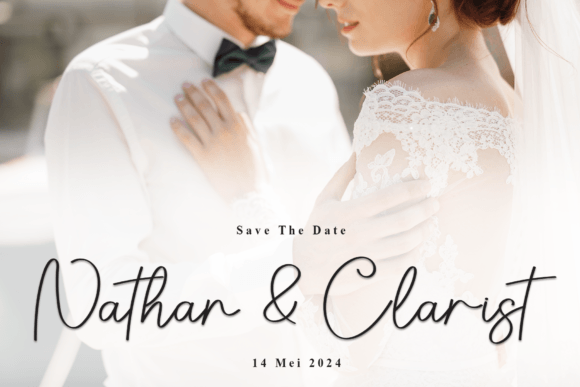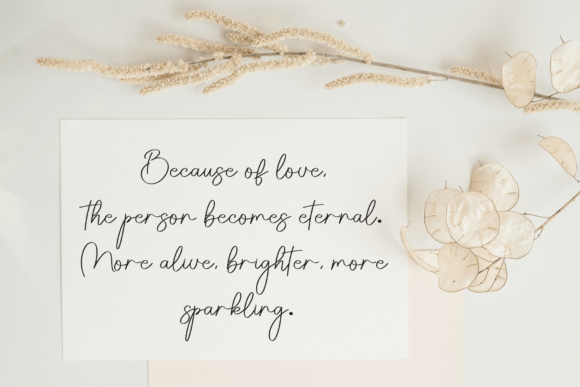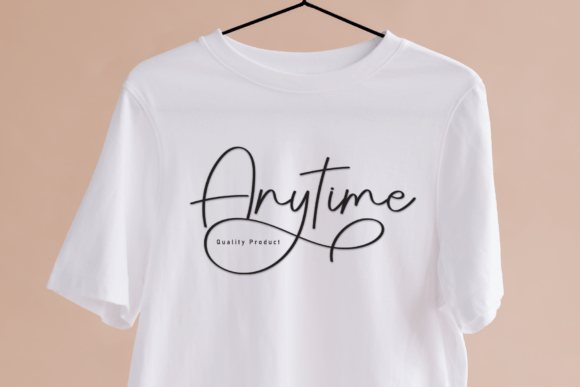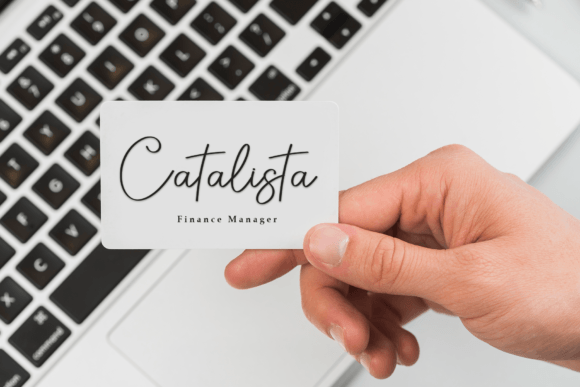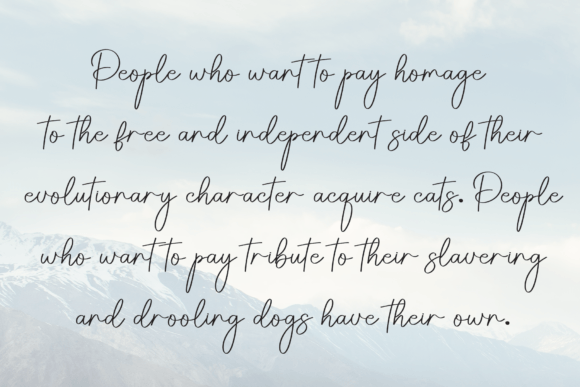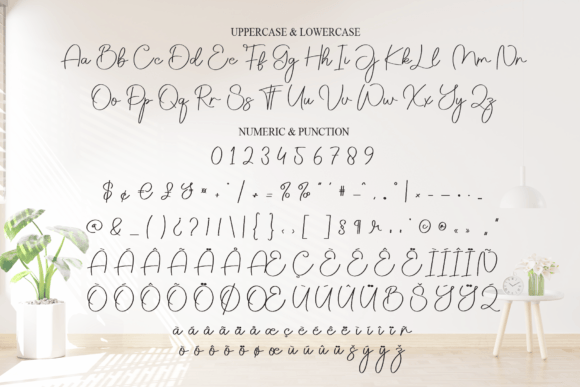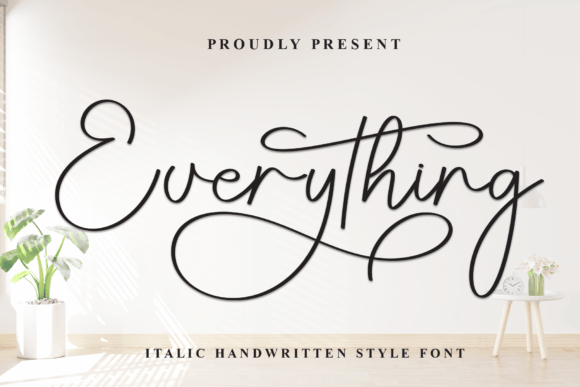
Introducing Everything: The Ultimate Stylish Handwritten Font
Are you tired of using the same old fonts for your branding, invitations, and editorial designs? Look no further than Everything, a stunning handwritten font that combines elegance with a personal touch. With its fluid, graceful strokes and sophisticated character, Everything is the perfect choice for designers and crafters looking to elevate their projects with a touch of refined beauty and charm.
What Makes Everything So Special?
Everything is more than just a font – it’s an experience. Its unique blend of elegance and playfulness makes it perfect for a wide range of applications, from chic branding and elegant invitations to fashionable editorial designs. Whether you’re looking to create a luxurious brand identity, a beautiful wedding invitation, or a stylish magazine layout, Everything has got you covered.
Key Features of Everything Font
- Fluid and Graceful Strokes: Everything’s fluid, handwritten strokes give it a natural, effortless feel that’s perfect for creating elegant and sophisticated designs.
- Sophisticated Character: With its unique character and refined aesthetic, Everything is perfect for designers and crafters looking to add a touch of luxury to their projects.
- Highly Versatile: Whether you’re working on a branding project, an invitation, or an editorial design, Everything is the perfect choice.
- Elegant and Playful: Everything strikes the perfect balance between elegance and playfulness, making it perfect for a wide range of applications.
As a designer or crafter, you know how important it is to have the right tools at your disposal. With Everything, you can take your projects to the next level with its refined beauty and charm. Whether you’re working on a personal project or a client’s brief, Everything is the perfect choice for anyone looking to create something truly special.
Use Cases for Everything Font
- Branding: Create a luxurious brand identity with Everything’s elegant and sophisticated character.
- Invitations: Make a statement with elegant and stylish invitations that showcase your personal style.
- Editorial Design: Add a touch of refined beauty to your magazine layouts, blog posts, and other editorial designs.
- Wedding Stationery: Create beautiful wedding invitations, programs, and other stationery with Everything’s elegant and playful character.
Why Choose Everything Font?
With so many fonts to choose from, why choose Everything? Here are just a few reasons why Everything stands out from the crowd:
- Unique and Exclusive: Everything is a one-of-a-kind font that’s sure to make your projects stand out from the crowd.
- High-Quality Design: Everything is designed with precision and attention to detail, ensuring that it looks great in any application.
- Multilingual Support: Everything supports multiple languages, making it perfect for international projects.
In conclusion, Everything is a stylish handwritten font that’s perfect for designers and crafters looking to add a touch of elegance and sophistication to their projects. With its fluid, graceful strokes and sophisticated character, Everything is the perfect choice for chic branding, elegant invitations, and fashionable editorial designs. So why wait? Download Everything today and take your projects to the next level with its refined beauty and charm.